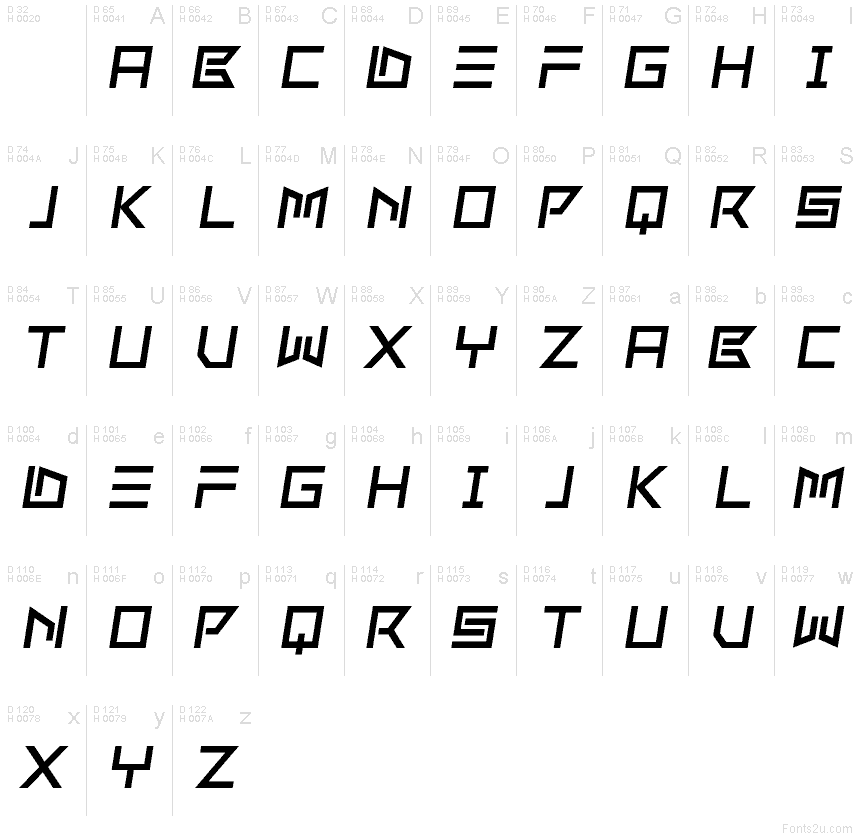
Orchestric Italic
Orchestric Italic font by Vladimir Nikolic is a free techno display typeface that looks like it was cut from glowing metal and pushed into motion. Every letter leans forward with sharp, slanted edges and sliced-off corners, creating a sense of speed and digital precision. The tight rhythm and geometric angles make headlines feel like they’re pulsing across a screen, while the clean internal shapes keep words fast to read, not just flashy.
Using Orchestric Italic in the Orchestric family, your designs instantly pick up a sleek, futuristic energy. This free font shines on esports branding, sci-fi posters, music covers, tech event graphics, gaming overlays, and bold logotypes. Set it large and give it room to breathe, then pair it with a simple, neutral sans serif for body copy to let the angular letterforms do the talking.